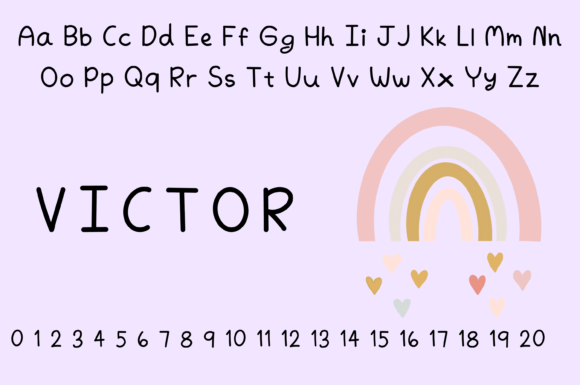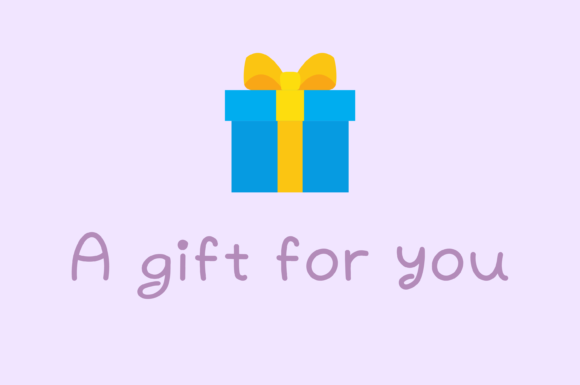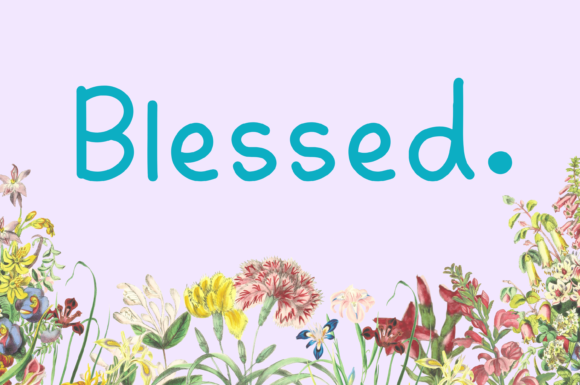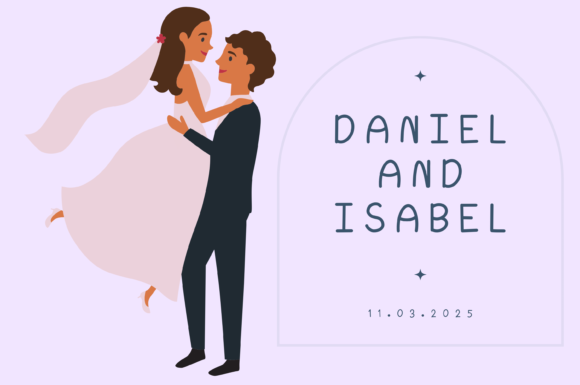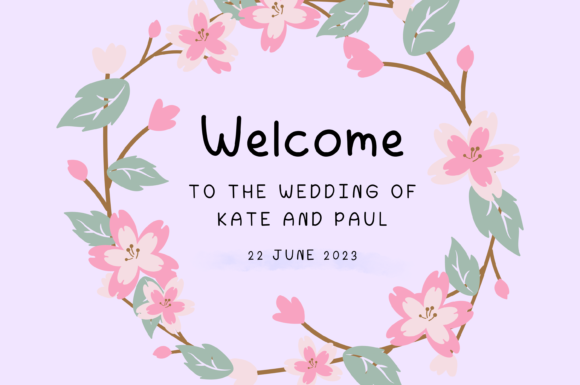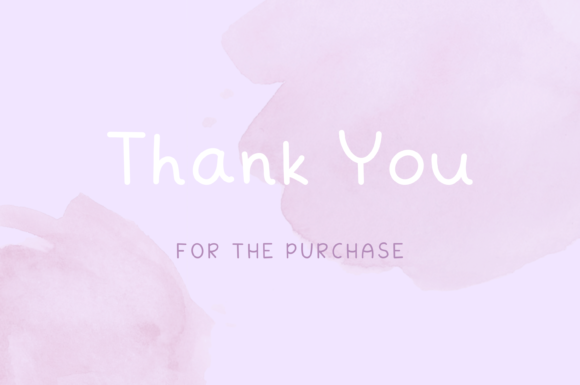
Introduction to Minimal Style Font
Have you ever found yourself stuck in the middle of a creative project, desperately searching for the perfect font to bring your design to life? I’m sure we’ve all been there. For me, it was a particularly frustrating moment when working on a branding project for a sustainable fashion brand. I wanted a font that exuded elegance and simplicity, yet conveyed a sense of approachability and warmth. That’s when I stumbled upon the Minimal Style Font – a game-changing design resource that has since become a staple in my toolkit.
This beautifully crafted handwritten font is a masterclass in subtlety and restraint. With its transparent background and high-quality design, it’s the perfect addition to any creative project that requires a touch of whimsy and sophistication. And the best part? It’s available for free download, making it an invaluable resource for designers of all levels.
Whether you’re working on a high-end advertising campaign or a personal blog, the Minimal Style Font is sure to elevate your design to the next level. Its versatility and charm make it an essential tool for any designer looking to add a touch of personality to their work.
Key Features of Minimal Style Font
• High-quality font with a transparent background, ideal for use on any color or image.
• Unique characteristic: Elegant, sans-serif design with a minimalist aesthetic, suitable for modern and sleek designs.
• Perfect for use in graphic design, digital art, and print media, including logos, business cards, and brochures.
Honest Review: Minimal Style Font
I recently had the chance to work with the Minimal Style Font, and I must say it’s been a great addition to my design resource collection. The font’s clean and simple design makes it perfect for a wide range of creative projects.
What works well with this font is its versatility. ✨ It can be used for both digital and print projects, and its transparent background makes it easy to use with any design. The font is also free to download, which is a huge plus for designers on a budget.
Here are some of the key features that make this font stand out:
• High-quality design that’s perfect for creative projects
• Transparent background for easy use with any design
• Works well for both digital and print projects
However, I did encounter some limitations with this font. ⚠️ The font is not as customizable as some other fonts on the market, which can make it difficult to achieve a specific look or feel. Additionally, the font may not be suitable for projects that require a lot of bold or dramatic typography.
Overall, I’m really impressed with the Minimal Style Font. Its clean design, versatility, and free download make it a great addition to any designer’s collection. While it may have some limitations, I think it’s definitely worth checking out for any creative project.
How to Use Minimal Style Font
The Minimal Style Font is a versatile design resource that can elevate your creative project to the next level. This high-quality font features a clean and modern design, making it perfect for a wide range of applications.
Tips for Getting the Most Out of the Minimal Style Font
To get the most out of the Minimal Style Font, use it with a transparent background to create a clean and modern design. Experiment with different font sizes, colors, and styles to find the perfect combination for your creative project.
The Minimal Style Font is perfect for:
– Business cards and brochures